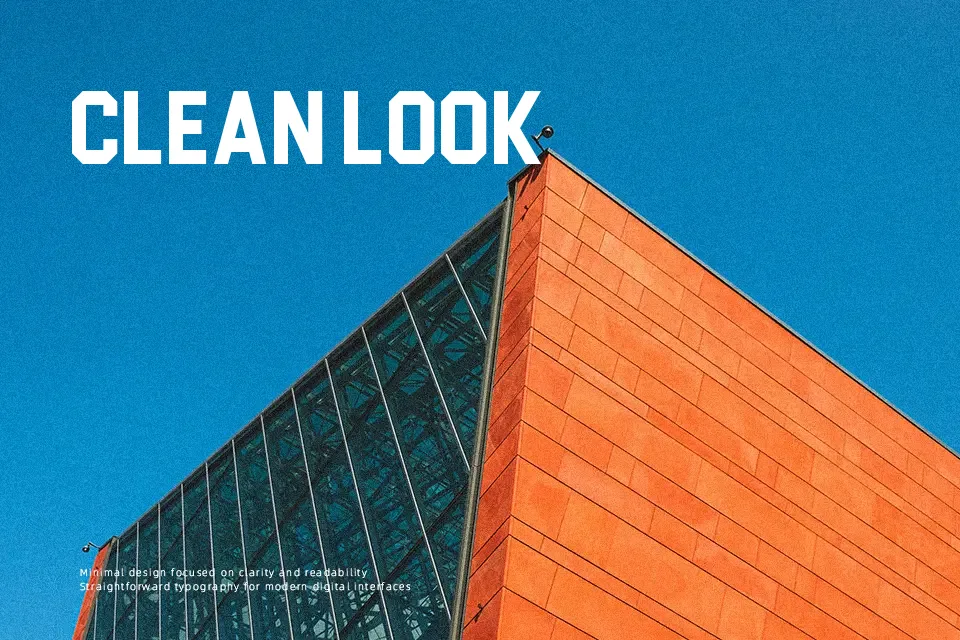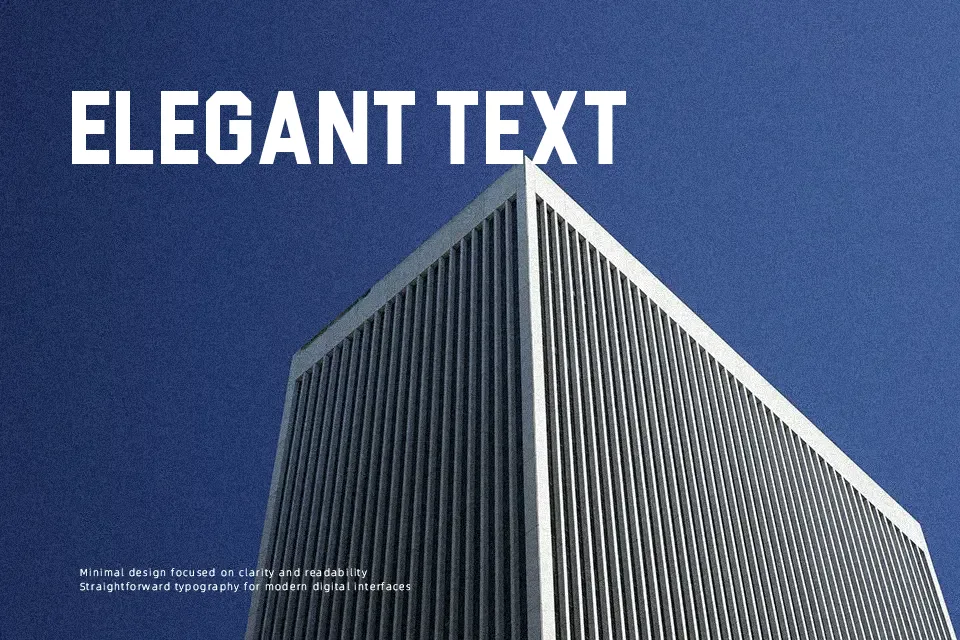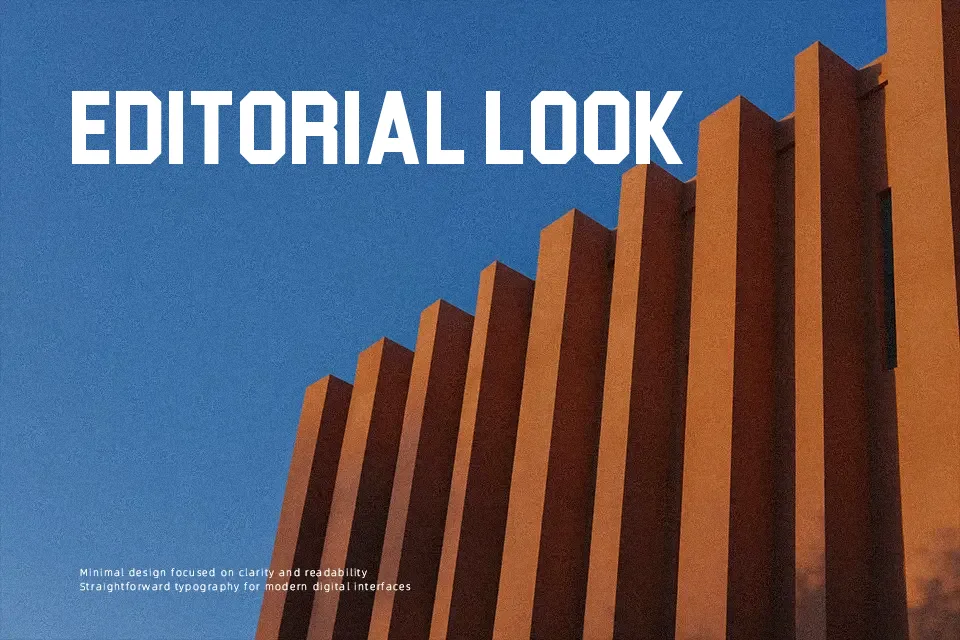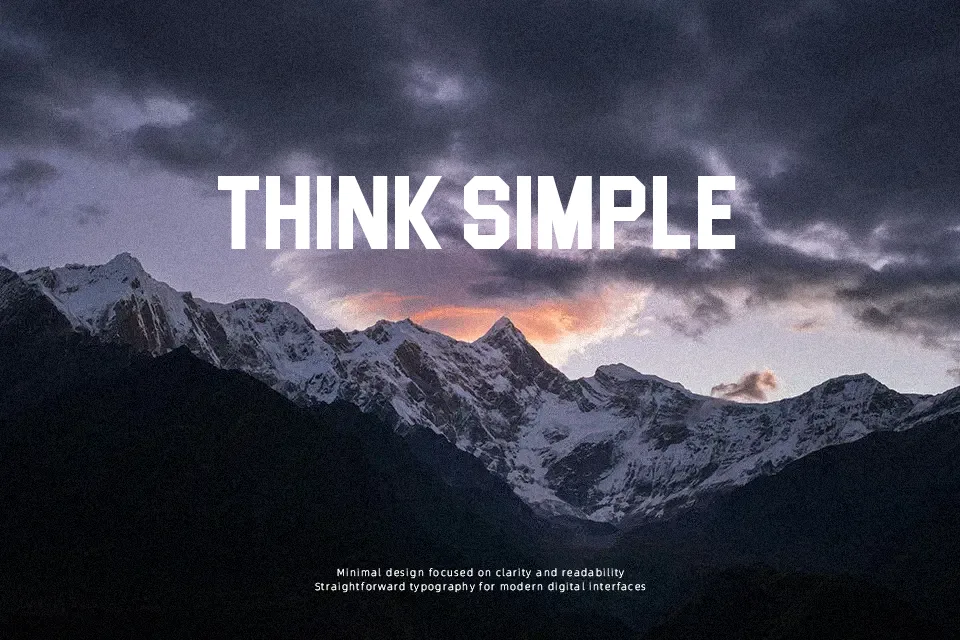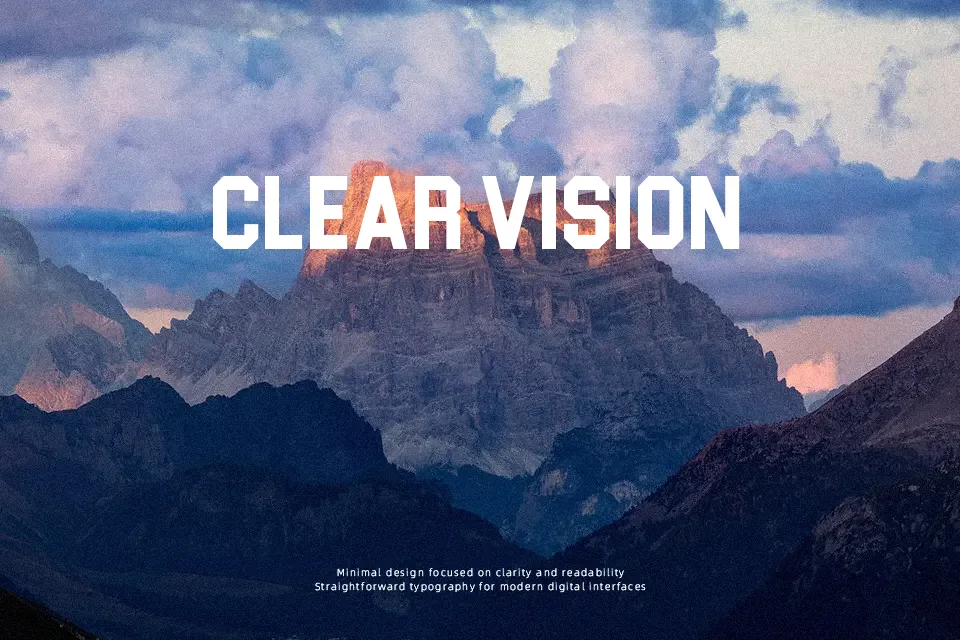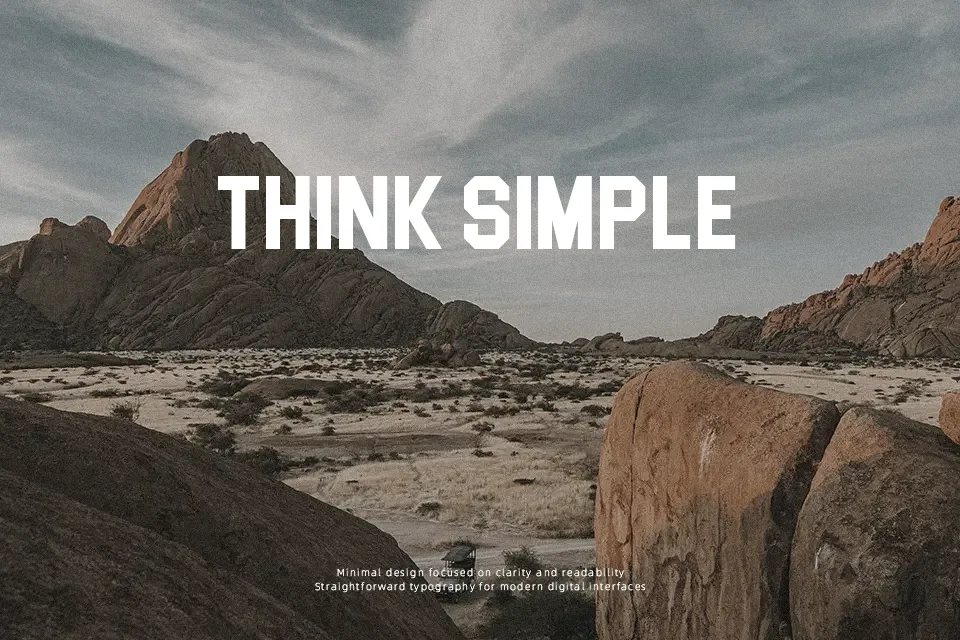
Blockletter Font
Examining the architecture of Blockletter reveals a heavily structured, uppercase-only sans serif that prioritizes immediate visual impact over delicate nuance. The thick, geometric strokes and rigid edges clearly draw inspiration from military stencils and classic university sweatshirts, creating a distinctly athletic and confident presence. This makes the typeface a highly effective choice for producing stadium banners, varsity team jerseys, and high-energy promotional posters where legibility from a distance is crucial. Conversely, its lack of lowercase characters and aggressively blocky structure mean it fails entirely in body text or subtle, refined branding scenarios. This font demands space and volume, feeling distinctly out of place in quiet, elegant design contexts.
collegiate sports apparel
gym and fitness branding
industrial promotional posters
extended paragraph text
elegant boutique logos
wedding stationery designs
Perfect for branding, fashion, and logo, with a bold and display style.